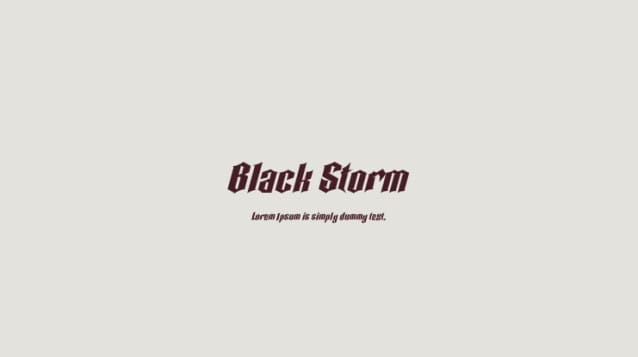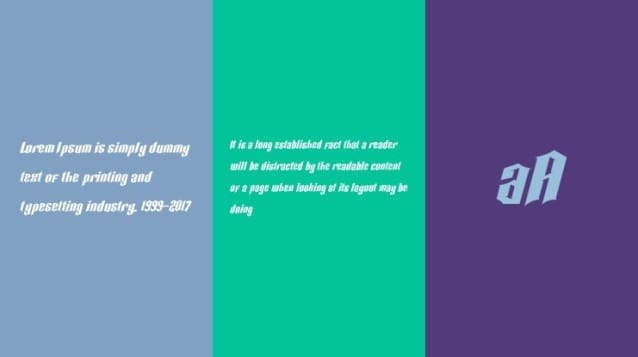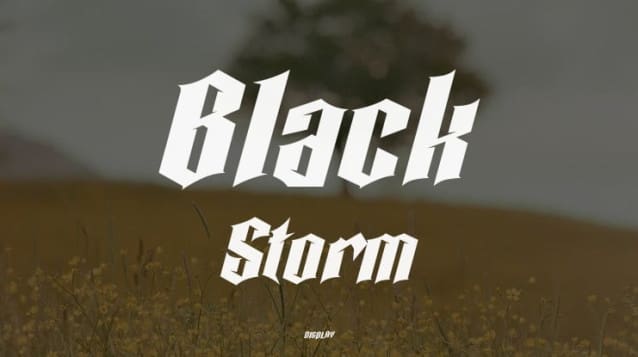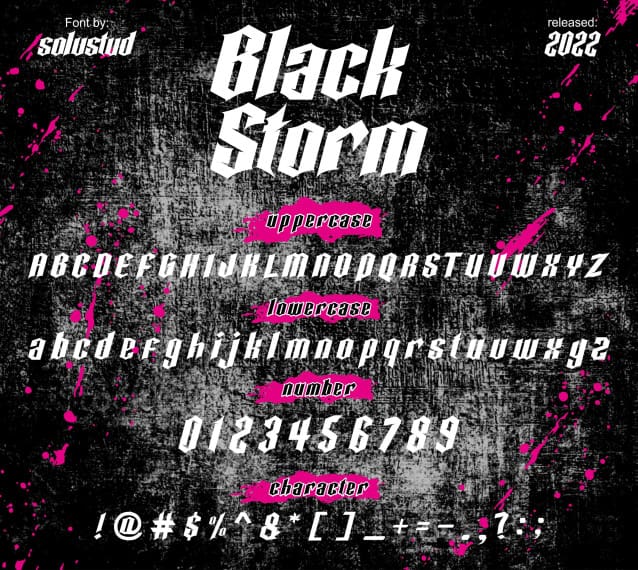
Black Storm Blackletter Font
Black Storm Blackletter Font, is a slanted freestyle blackletter font with progressive advantages that is gothic, mysterious, brave, classic. This font is perfect for horror themes, tattoos, shirt designs, sword action, action game covers, logos & branding, product designs, labels, and so on.